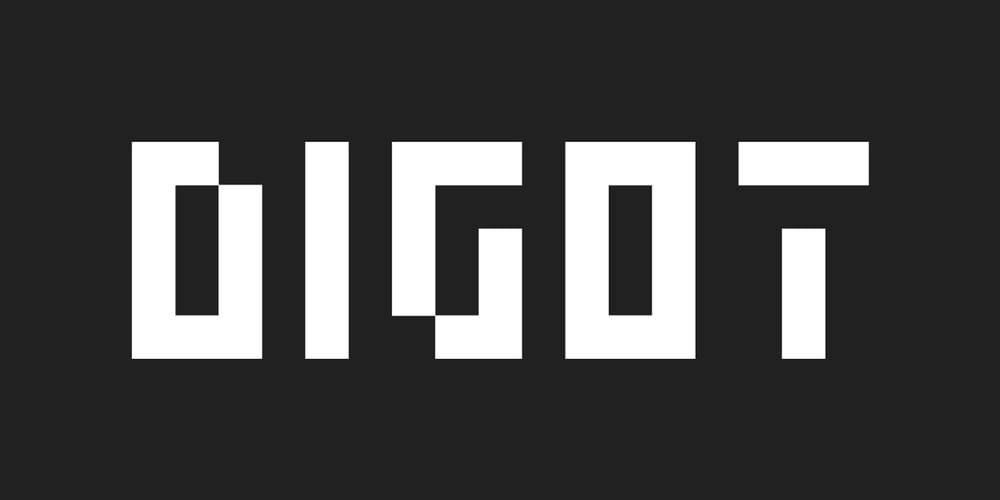
Digot Font Family was designed by Bartosz Panek and published by Fontsphere. Digot contains 1 styles and family package options. DIGOT is a pixel-style, grid-based, geometric, display typeface. The idea for this font was born while combining lettering and illustrations in a geometric and pixel art style. What was needed was a font built with attention to detail for an interesting and unconventional creation of text and geometric images. The font is designed so that its modules lie on a grid and have their own rhythm and geometric order. So that it gives great editing possibilities and allows you to maintain a unique look. Optimal kerning is important here. The spacing between and within characters is well thought and designed to respect these rules (e.g. full pixel increments). Digot typeface offers a lot of creative possibilities in many types of graphic design and digital art. Posters, t-shirts, apparel printing, as well as website design, brand identity, and much more.The font contains a large range of characters, numbers, punctuation. Although it is an all-caps font, the T character is in two options. Digot includes support for a wide range of languages, e.g. Cyrillic, etc. Enjoy!